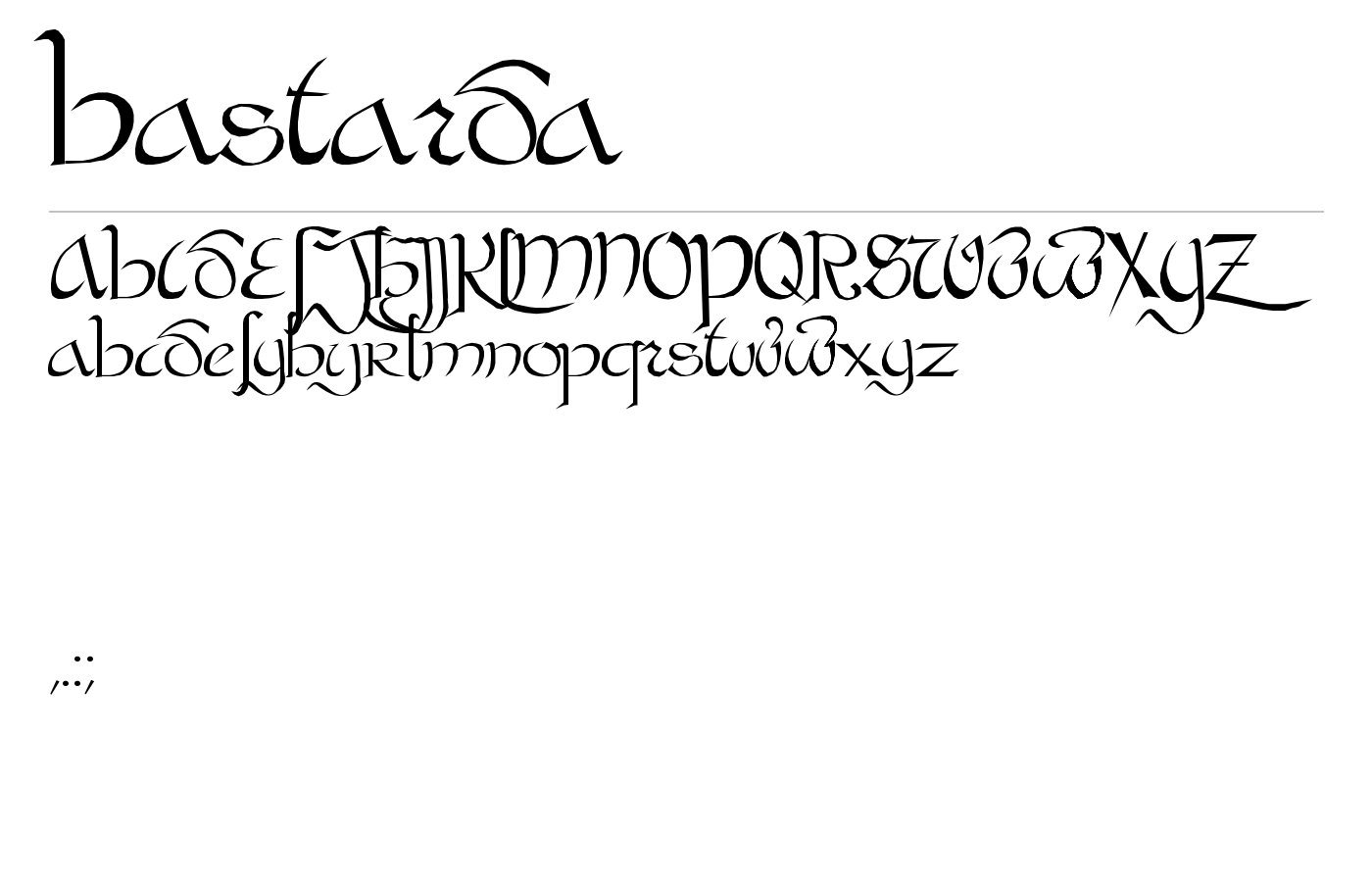
Bastarda is a unique blackletter-style font that combines a traditional medieval calligraphic feel with sharp, angular strokes and elegant flourishes. Its narrow, tall letterforms and intricate details give it a historical, sophisticated character, making it ideal for projects that seek to evoke a sense of heritage, craftsmanship, or a gothic aesthetic. This font works best in headlines, logos, or decorative uses where its distinctive style can stand out and convey a dramatic, artistic mood.
Bastarda Font
About Bastarda Font